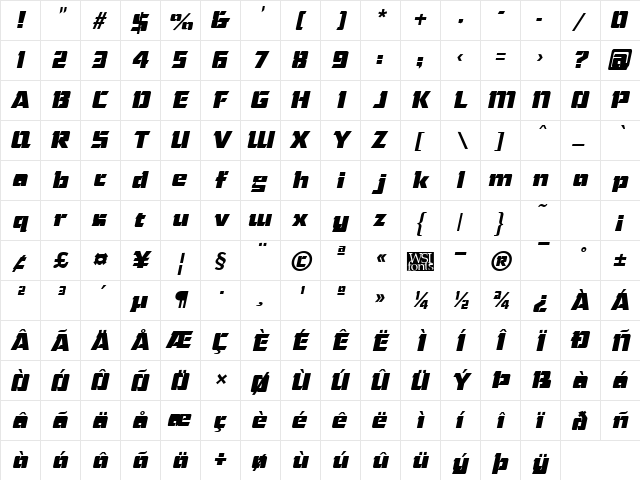
Chisel Italic
Design Context for Chisel Typeface
Chisel offers clean, dependable letterforms without strong stylistic allegiance, making it a practical choice for designers who need flexibility. Its italic angle brings a sense of urgency and motion to the letterforms.
Pro Tip: Use Chisel for emphasis, pull quotes, and subheadings where its slanted energy can add rhythm to the layout.